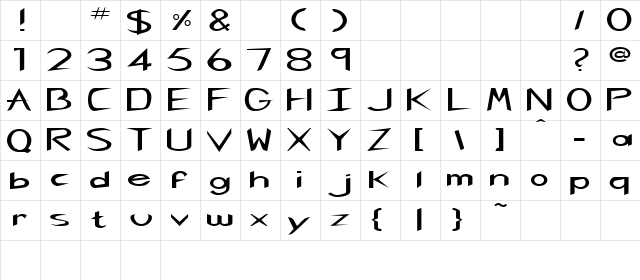
SingaporeExtended Regular
Design Context for SingaporeExtended Typeface
SingaporeExtended is a composed and adaptable typeface that performs quietly and consistently across a wide range of design contexts.